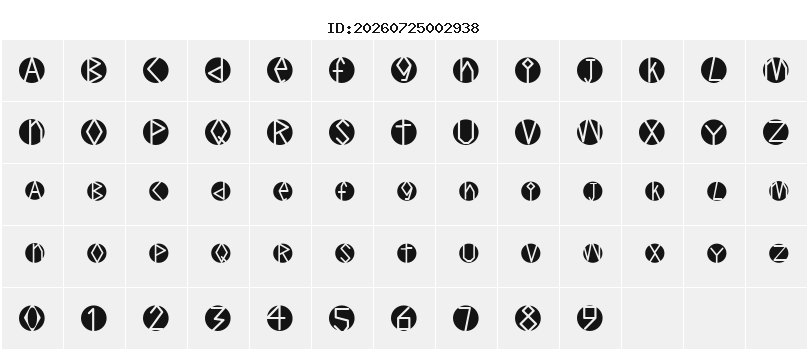
Greco-In Preview
About Greco-In.ttf
Greco-In.ttf is a modern, elegant sans-serif font designed for ultimate readability and visual harmony. Perfect for branding, headlines, web design, and print materials.